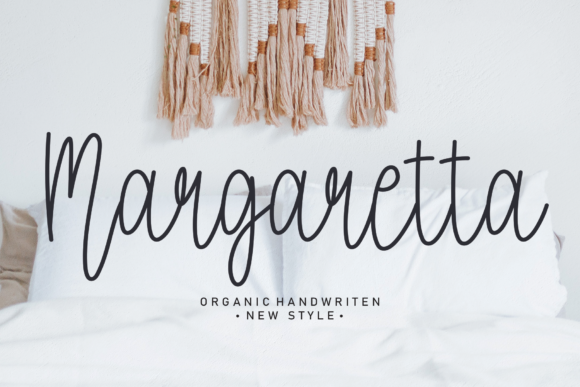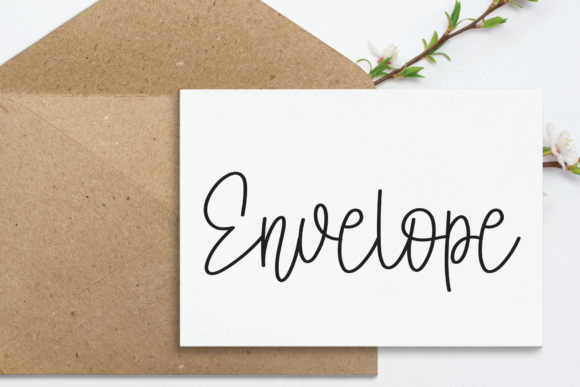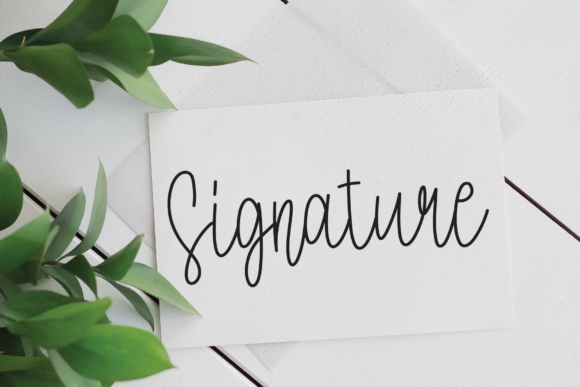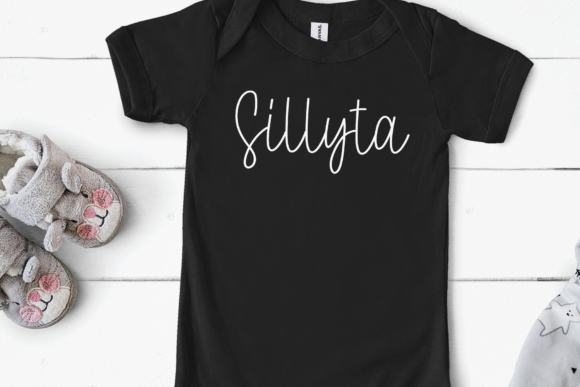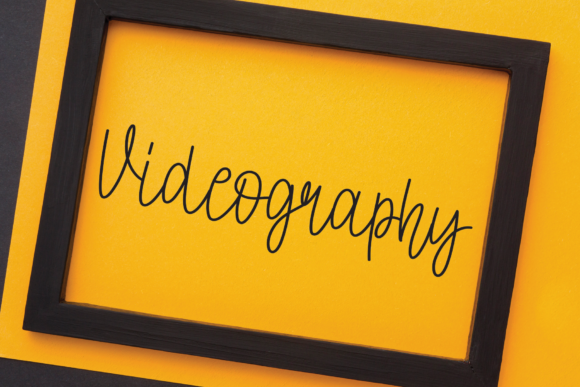
Margaretta Font
About Margaretta Font
Margaretta is a thin lettered script font featuring charming, playful characters that seem to dance along the baseline. Add this font to your most creative ideas, and notice how it makes them stand out!